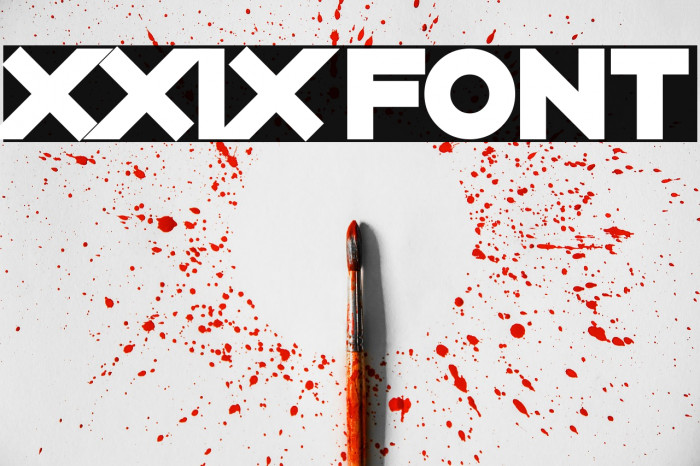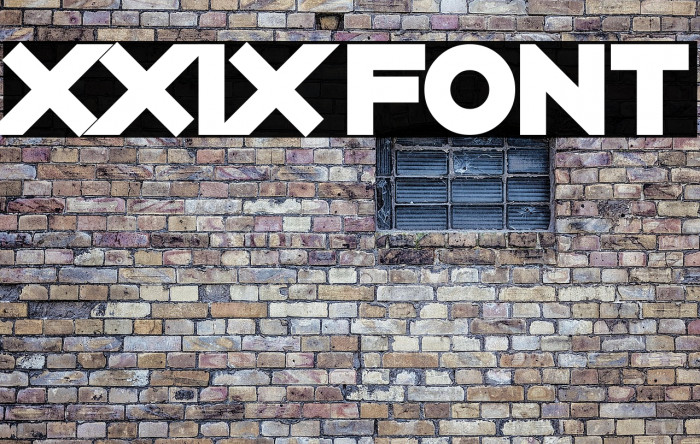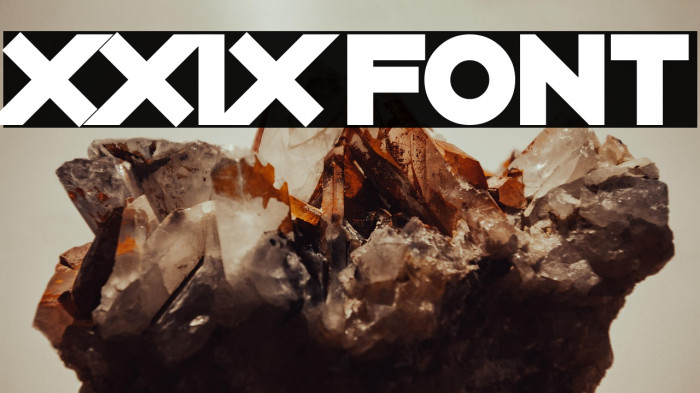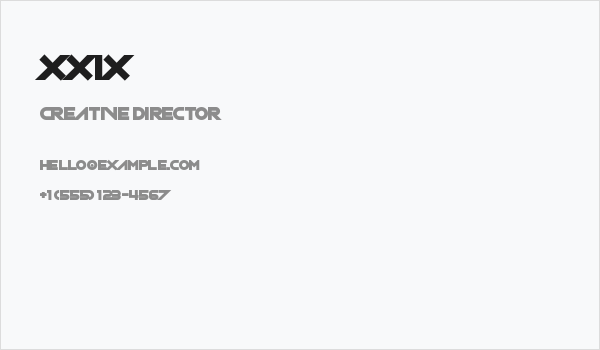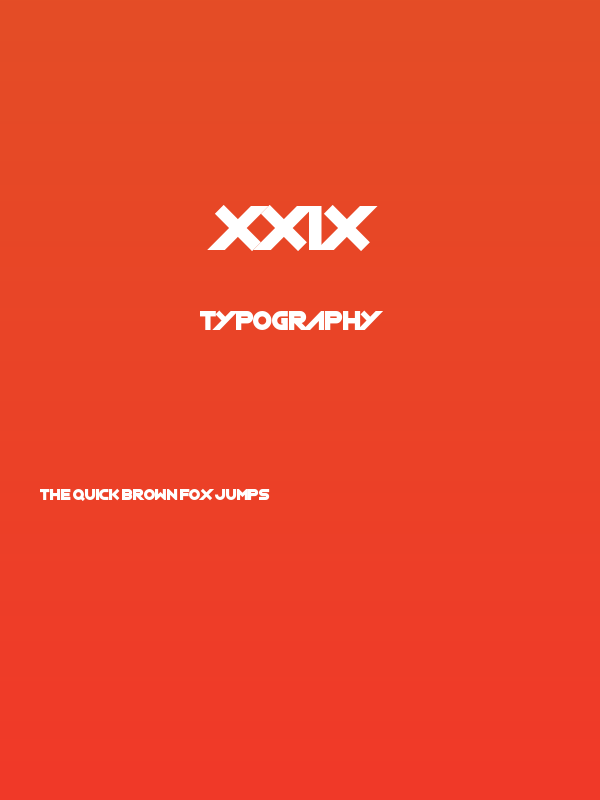
XXIX Font
XXIX Description
This font features a bold and geometric design, characterized by its sharp angles and clean lines. The uppercase letters are uniform in height, with a consistent stroke width that gives a strong and impactful appearance. The lowercase letters maintain the same boldness, ensuring readability while preserving the geometric aesthetic. Numbers and special characters are designed to match the overall style, with a focus on symmetry and balance. This font's modern and futuristic look makes it suitable for a variety of design applications.
| Proposed Projects | Ideal for branding, posters, headlines, and digital media where a strong, modern impact is desired. |